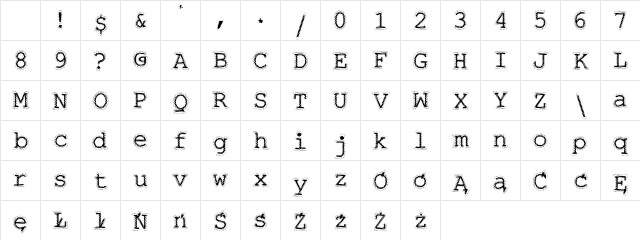
skontt is a composed and adaptable typeface that performs quietly and consistently across a wide range of design contexts.
Pro Tip: Use skontt in both headline and body roles to test its range before committing to a single application.